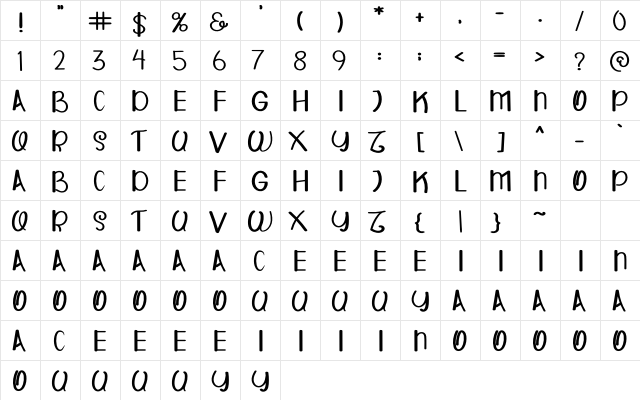
HAPPY WOLDY Regular
Design Context for HAPPY WOLDY Typeface
HAPPY WOLDY is a composed and adaptable typeface that performs quietly and consistently across a wide range of design contexts.